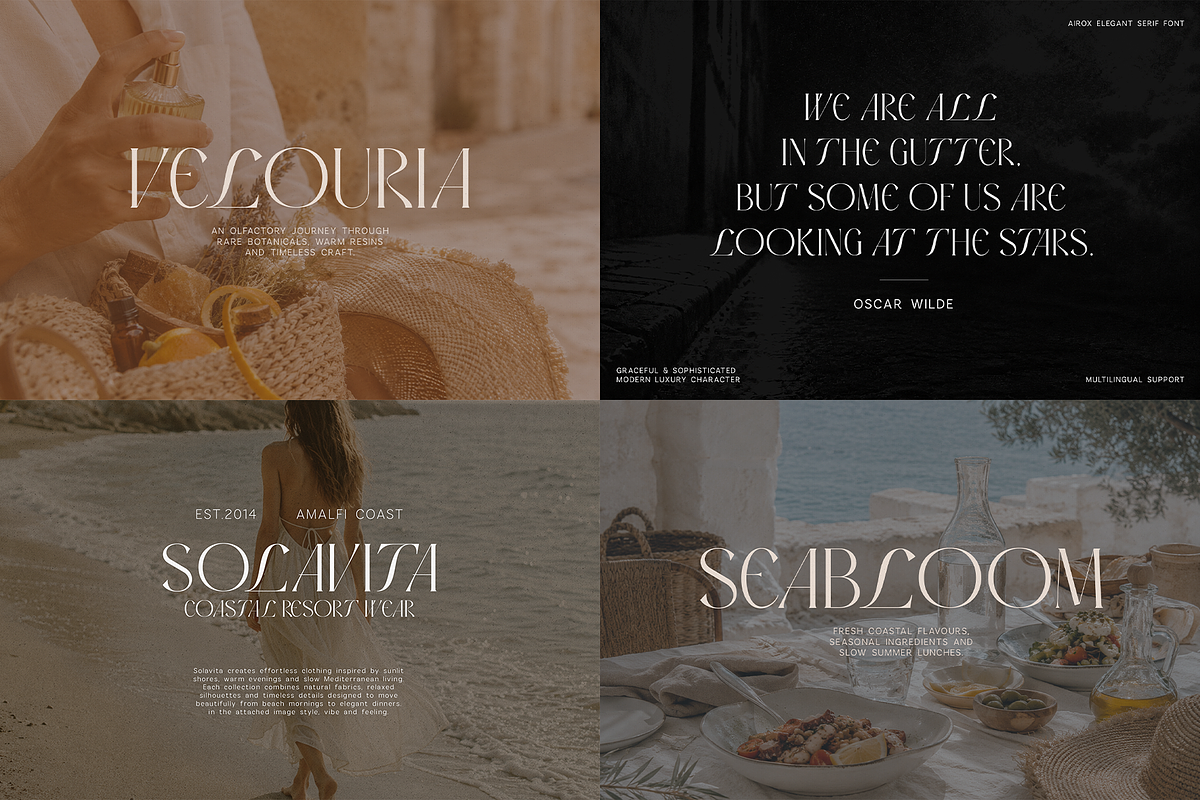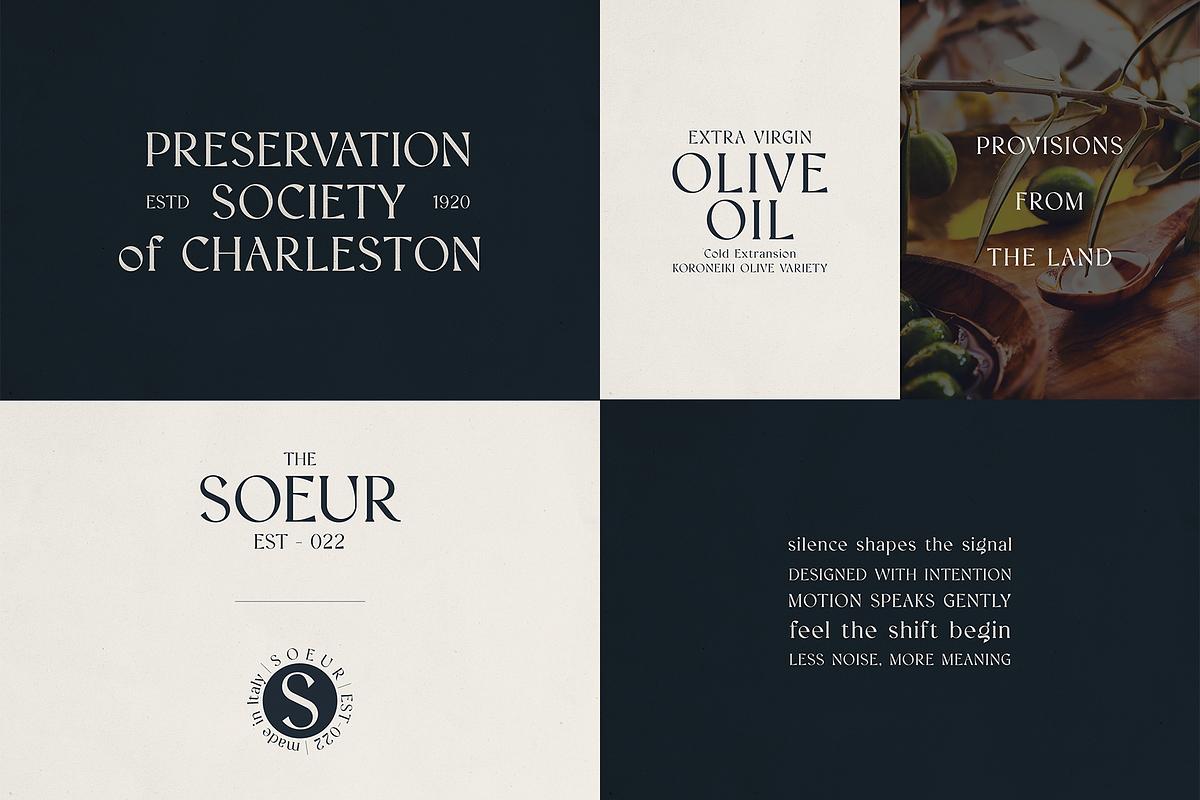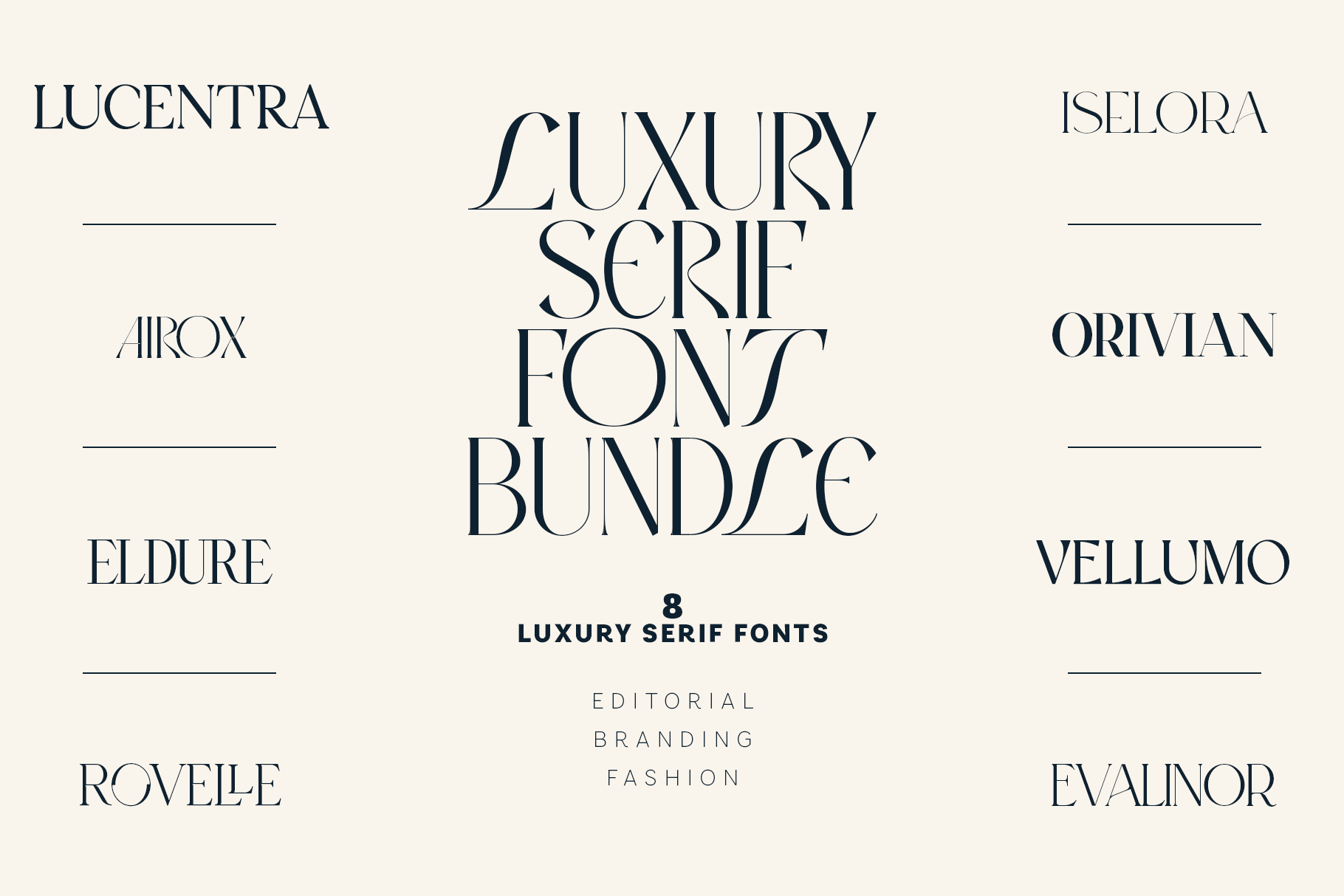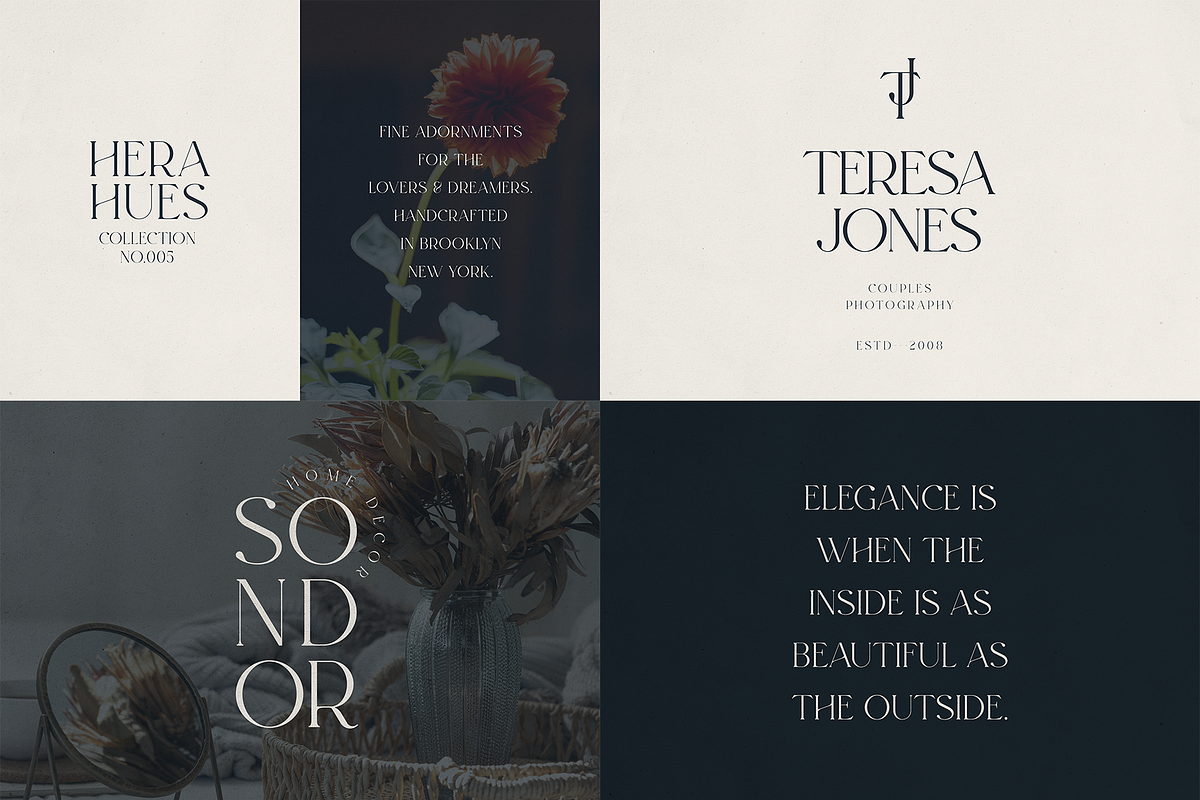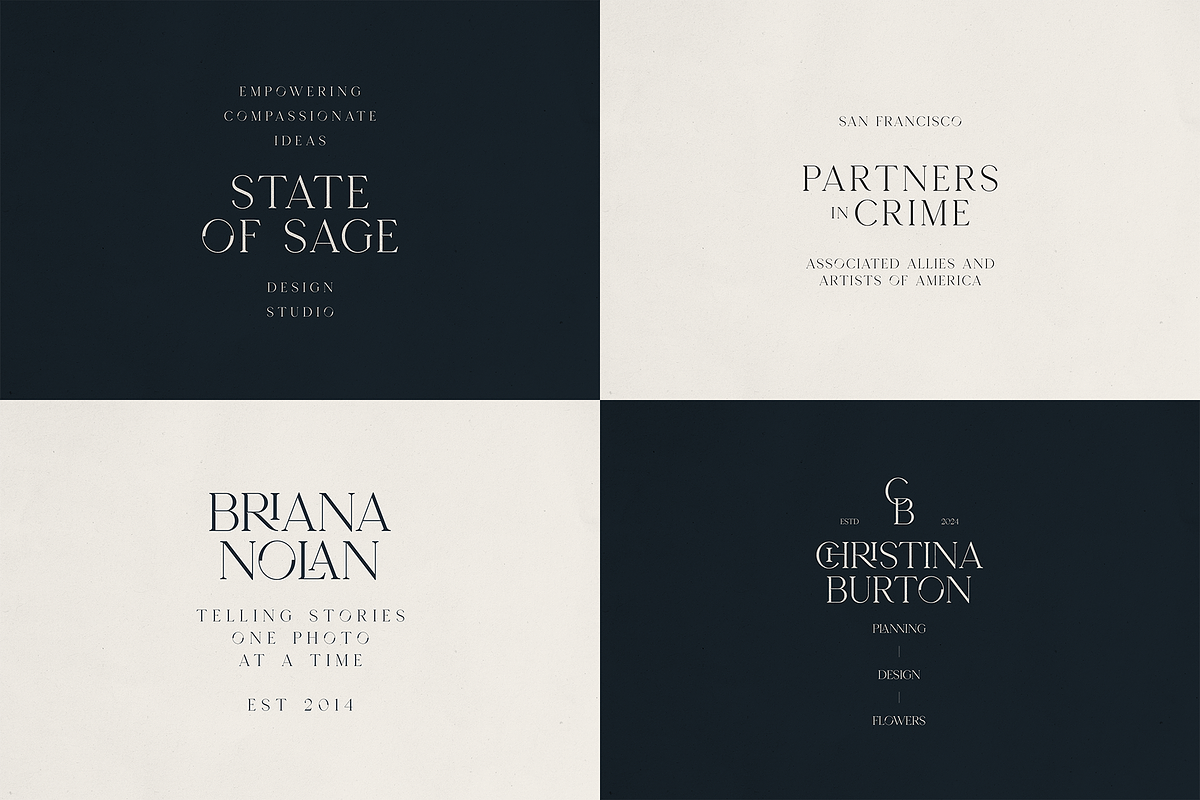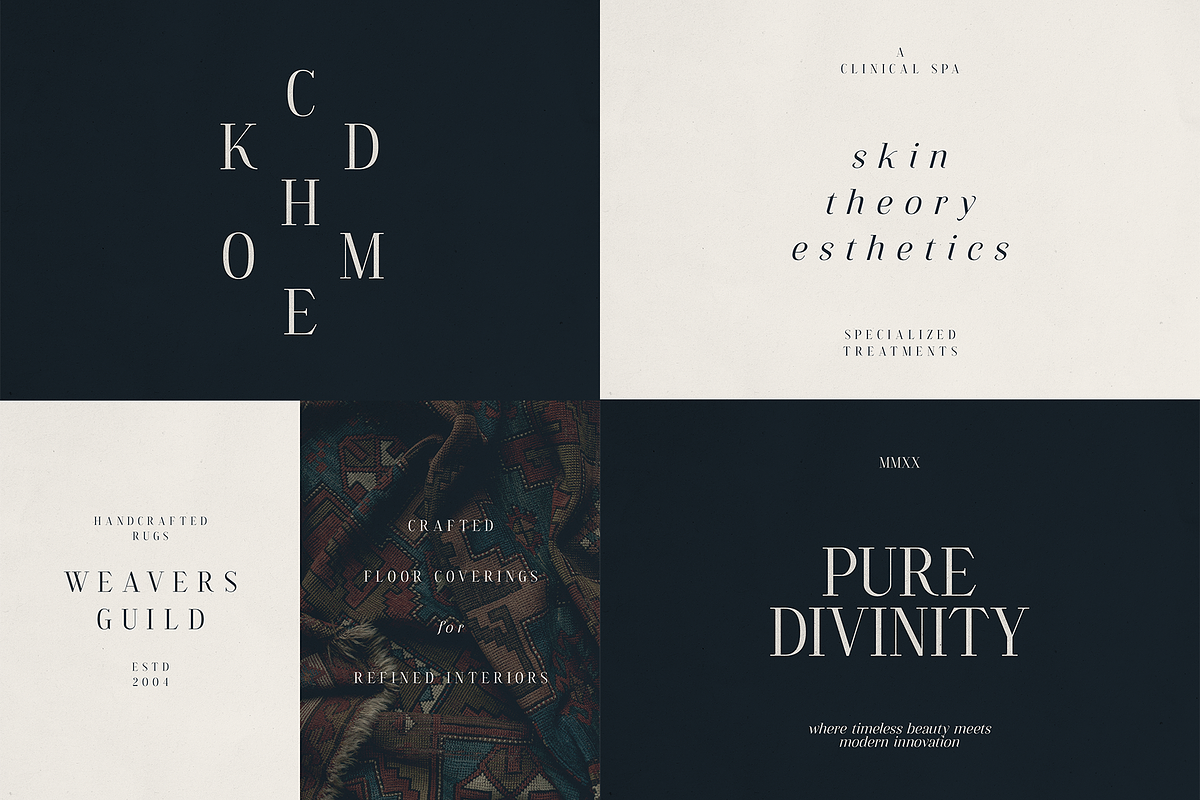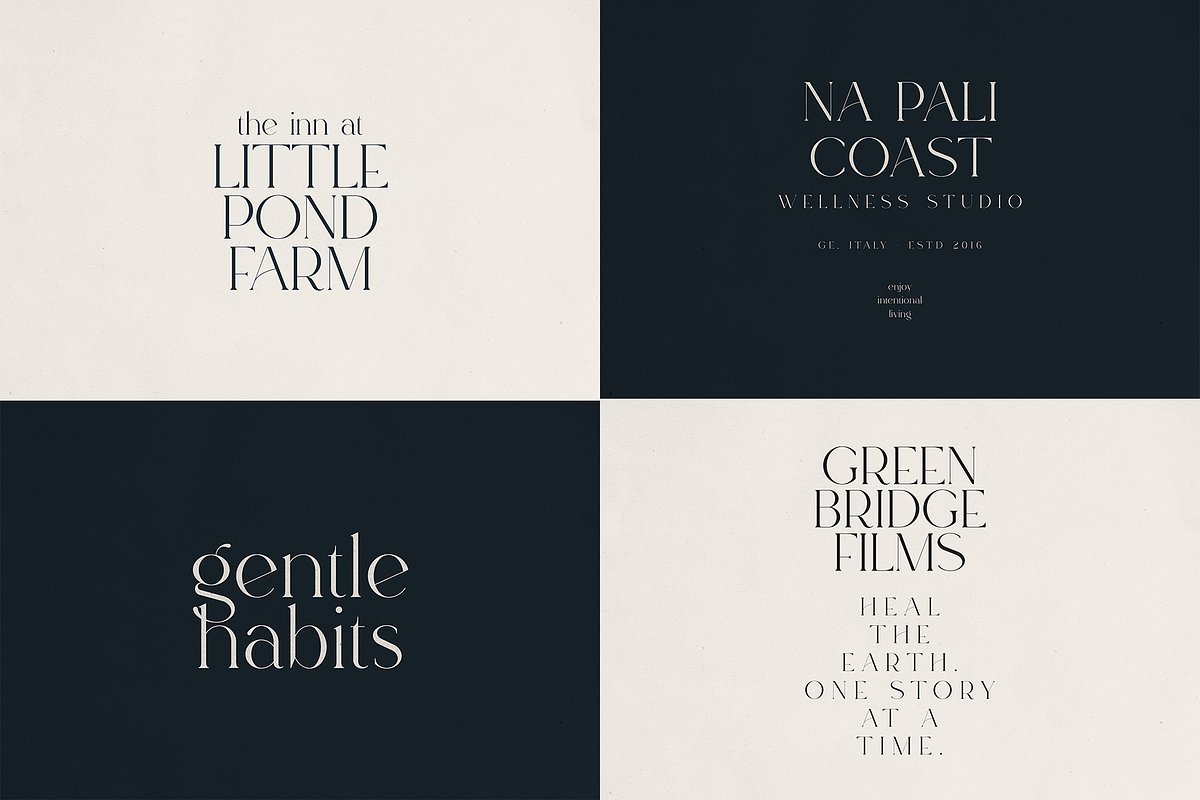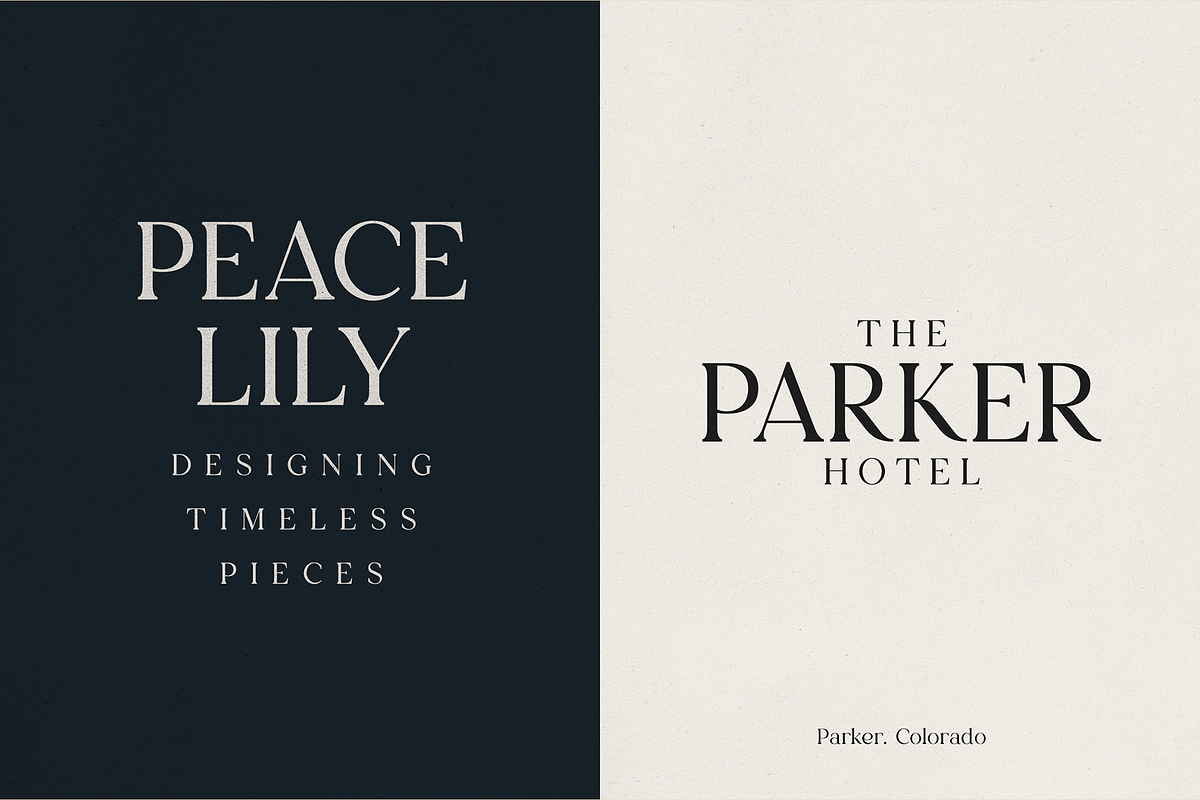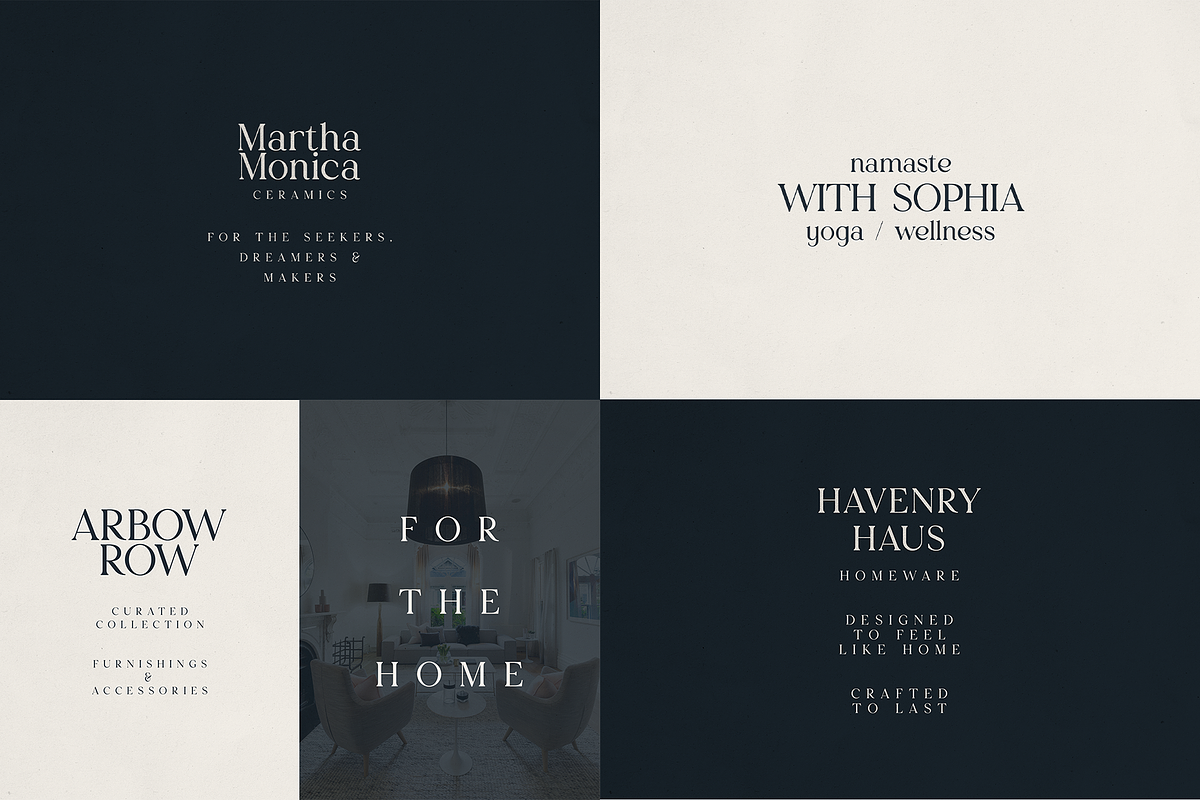
Luxury Serif Collection - 8 Fonts
Luxury Serif Collection brings together 8 elegant serif fonts for luxury branding, fashion editorials, logos, packaging and magazines.
Created for designers who value refined typography and carefully considered details, this curated collection combines eight distinctive serif typefaces with a shared sense of sophistication.
From high-contrast editorial lettering and elongated fashion-inspired forms to softer contemporary serifs, the collection gives you a versatile typography library without the clutter of an oversized font bundle.
8 TYPEFACES INCLUDED
Airox - sophisticated editorial serif with a strong fashion-led presence
Evalinor - elegant and expressive serif for refined visual identities
Eldure - contemporary serif with a timeless, elevated character
Orivian - distinctive serif designed for statement typography
Lucentra - refined modern serif with graceful proportions
Rovelle - polished serif for branding and editorial applications
Iselora - high-contrast contemporary serif with subtle sophistication
Vellumo - elegant serif with a classic yet modern personality
Rather than offering dozens of unrelated fonts, Luxury Serif Collection is intentionally curated around one aesthetic direction.
Each typeface has enough personality to lead a project on its own, while the full collection gives you multiple approaches to elegant serif typography - from understated branding to dramatic editorial layouts.
Use one family for an entire identity or explore different typefaces across logos, campaigns, packaging and publications.
A carefully curated serif library for designers, brands and creatives looking for typography that feels editorial, polished and distinctive.